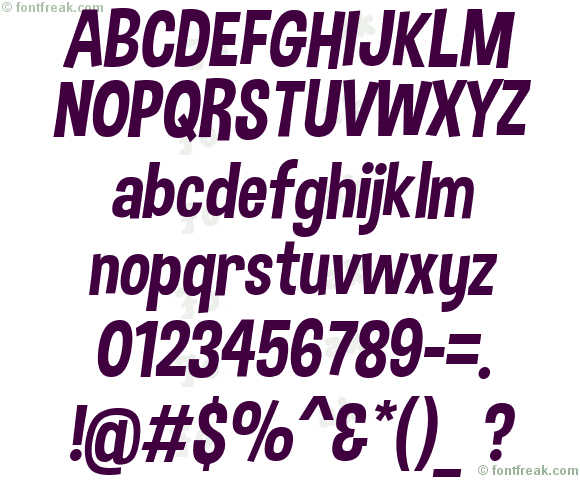
Dimbo Italic
About Dimbo Italic
Dimbo Italic, crafted by the talented Jayvee Enaguas, is a striking display font that stands out with its bold, contemporary flair. This font belongs to the sans-serif category, characterized by its smooth lines and geometric forms. The unique italic styling adds a dynamic quality, making it perfect for various design applications. The stroke weight is robust, providing excellent visibility, while the contrast between thick and thin strokes creates a sense of movement and energy. The spacing is well-balanced, allowing for readability even in larger blocks of text.
Ideal for a variety of creative projects, Dimbo Italic shines in areas such as branding, advertising, and promotional materials. It is particularly effective for eye-catching restaurant menus, where its modern aesthetic can entice diners. Additionally, it works beautifully on event posters, especially for music festivals or art shows, where its energetic style can capture attention. Graphic designers will appreciate how this font can enhance logos, giving them a unique edge that sets brands apart. Content creators can also leverage Dimbo Italic for social media graphics, making posts more engaging and visually appealing.
The target audience for this font includes graphic designers, small business owners, and content creators looking to make a strong impression with their typography. Whether you are crafting a vibrant Instagram post or designing an engaging flyer, Dimbo Italic offers versatility and style.
What truly sets the Dimbo Italic font apart is its ability to blend modernity with readability, making it a valuable addition to any designer's toolkit. With the option for a Dimbo Italic font free download, you can easily incorporate this unique typeface into your next project, enhancing your designs with its bold personality and contemporary edge.